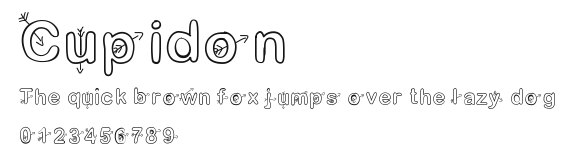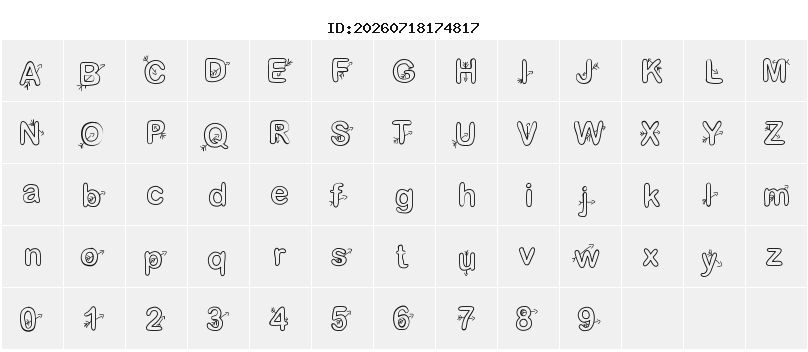
• Font Name: Cupidon
• Full Font Name: Cupidon
About Cupidon.ttf
Cupidon.ttf is a modern, elegant sans-serif font designed for ultimate readability and visual harmony. Perfect for branding, headlines, web design, and print materials.